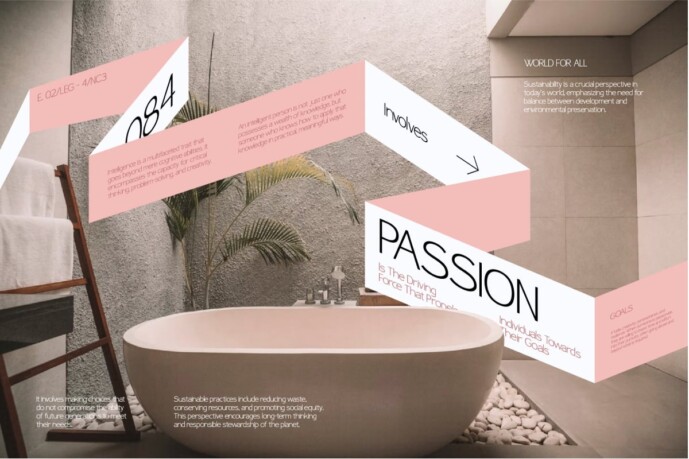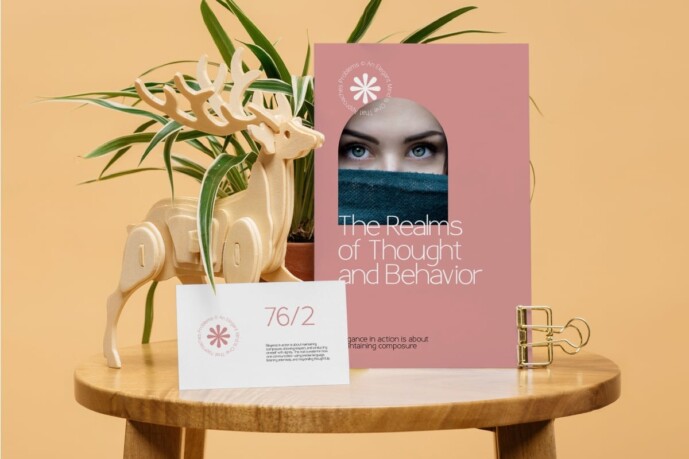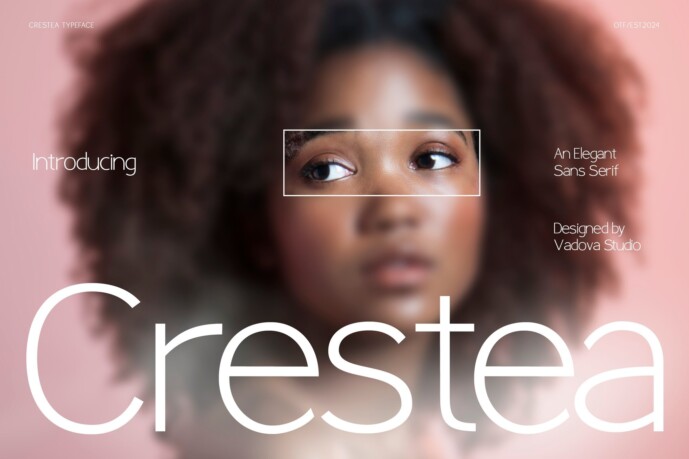
Crestea Font
Crestea Font – Elegant Sans Serif Font, a modern script font perfect for adding elegance and style to your projects. From quotes to logotypes to magazine headers and more, this versatile font ensures your text stands out beautifully in value.